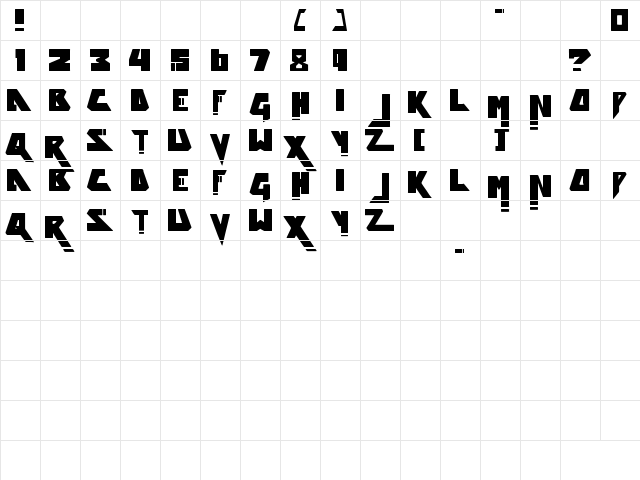
Firewall zero Regular
Design Context for Firewall zero Typeface
Firewall zero is a composed and adaptable typeface that performs quietly and consistently across a wide range of design contexts.